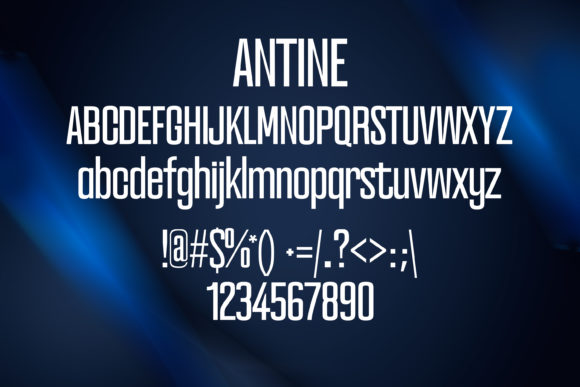
Introducing Antine Font: A Modern Twist on Traditional Sign Painting
In the world of typography, fonts play a crucial role in conveying messages, evoking emotions, and creating lasting impressions. For designers and crafters, finding the perfect font can be a daunting task, especially when looking for something that combines classic inspiration with modern flair. This is where Antine Font comes in – a stunning sans serif font that draws inspiration from traditional sign painting, with a clean and minimal twist.
The Inspiration Behind Antine Font
Antine Font is rooted in the rich history of sign painting, an art form that has been around for centuries. Traditional sign painting is known for its bold, expressive lettering and attention to detail. However, as design trends have evolved, the need for modern and versatile fonts has become increasingly important. Antine Font bridges the gap between traditional and modern design, offering a fresh take on classic sign painting.
Key Features of Antine Font
- Clean and Minimal Design: Antine Font boasts a clean and minimal aesthetic, making it perfect for modern designs. Its simplicity ensures that it can be used in a variety of contexts, from digital platforms to print materials.
- Sans Serif Elegance: As a sans serif font, Antine Font exudes elegance and sophistication. Its smooth lines and curves create a visually appealing effect that is both contemporary and timeless.
- Versatility: One of the standout features of Antine Font is its versatility. It can be used for a range of design projects, including logos, branding, packaging, and more.
- Legibility: Antine Font is designed with legibility in mind. Its clear and concise lettering ensures that messages are conveyed effectively, making it ideal for both digital and print applications.
Who Can Benefit from Antine Font?
Antine Font is a valuable resource for a wide range of designers and crafters, including:
- Graphic Designers: Looking for a modern and versatile font to elevate their designs.
- Branding Experts: Seeking a font that can help establish a strong brand identity.
- Packaging Designers: Needing a clean and elegant font for product packaging.
- Crafters and Makers: Wanting to add a personal touch to their handmade products with a unique and stylish font.
How to Use Antine Font in Your Designs
Integrating Antine Font into your designs is straightforward. Here are a few tips to get you started:
- Pair with Other Fonts: Experiment with pairing Antine Font with other fonts to create visual interest and hierarchy.
- Adjust Font Sizes: Play with different font sizes to emphasize certain elements and create a balanced design.
- Experiment with Colors: Take advantage of Antine Font’s versatility by using it in various colors and gradients.
Antine Font is a game-changer for designers and crafters looking for a modern and elegant sans serif font. Its roots in traditional sign painting, combined with its clean and minimal design, make it an excellent choice for a wide range of projects. Whether you’re working on a branding campaign, packaging design, or handmade craft, Antine Font is sure to elevate your work and leave a lasting impression.
Get Ready to Elevate Your Designs with Antine Font